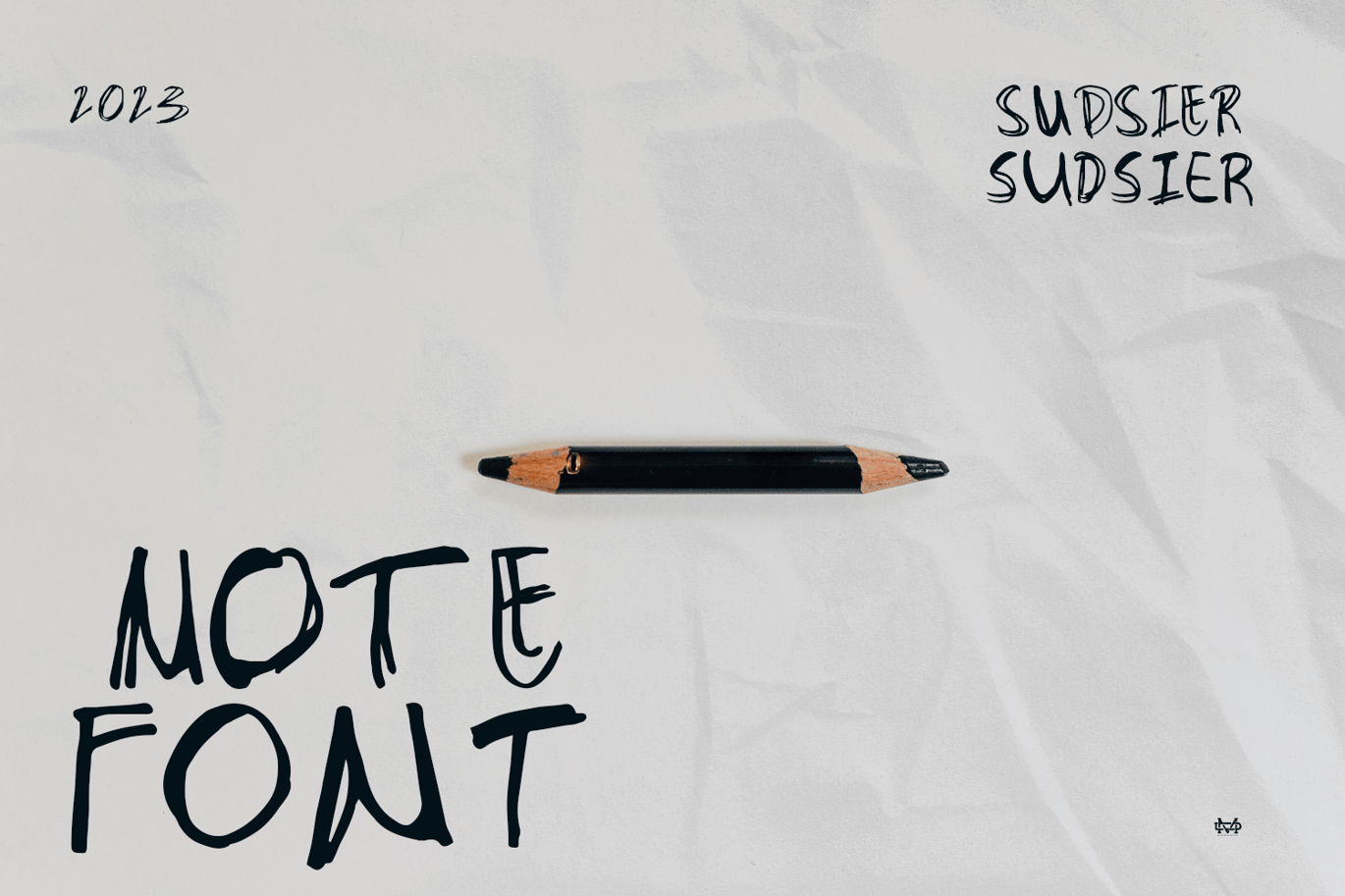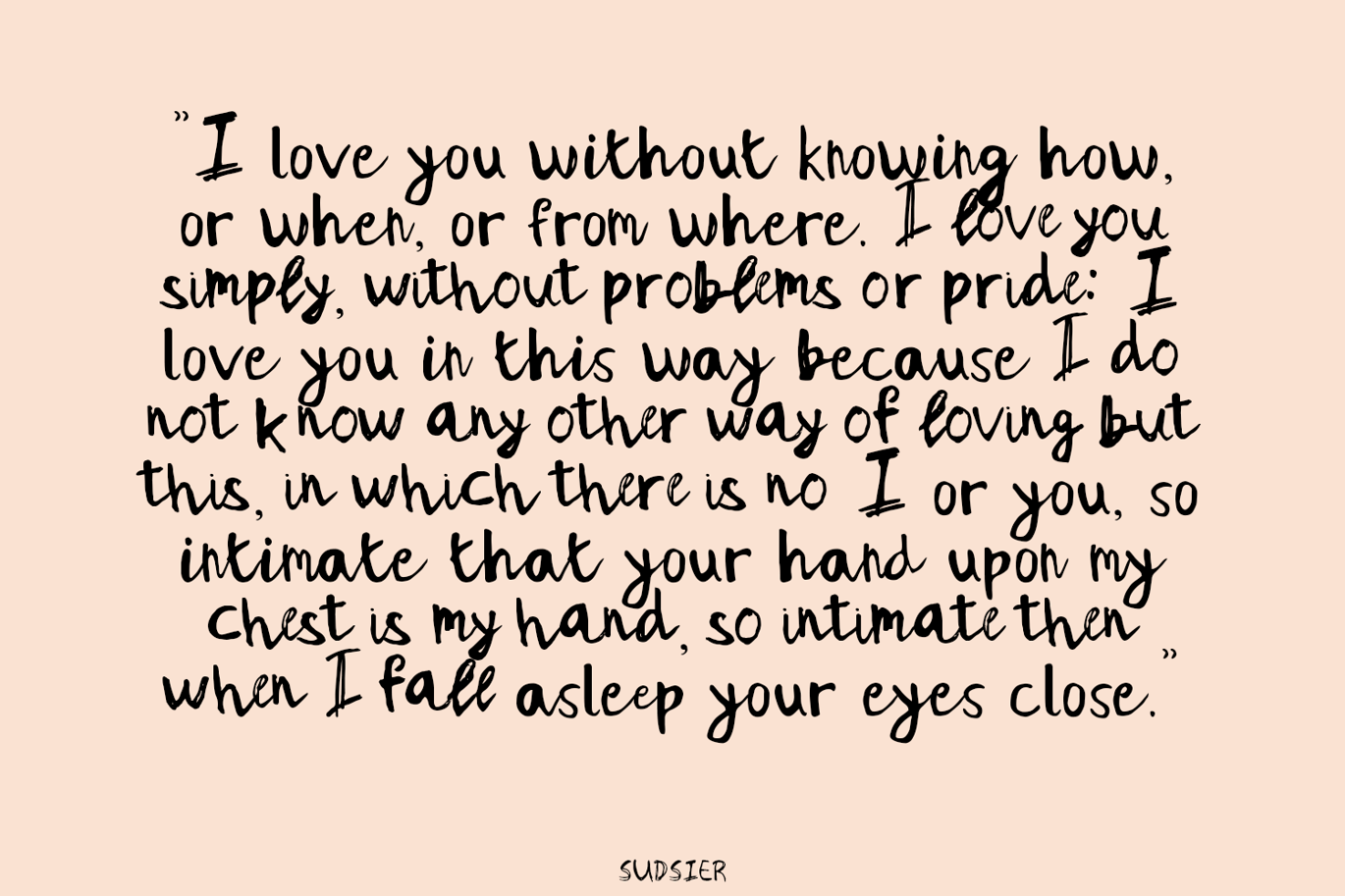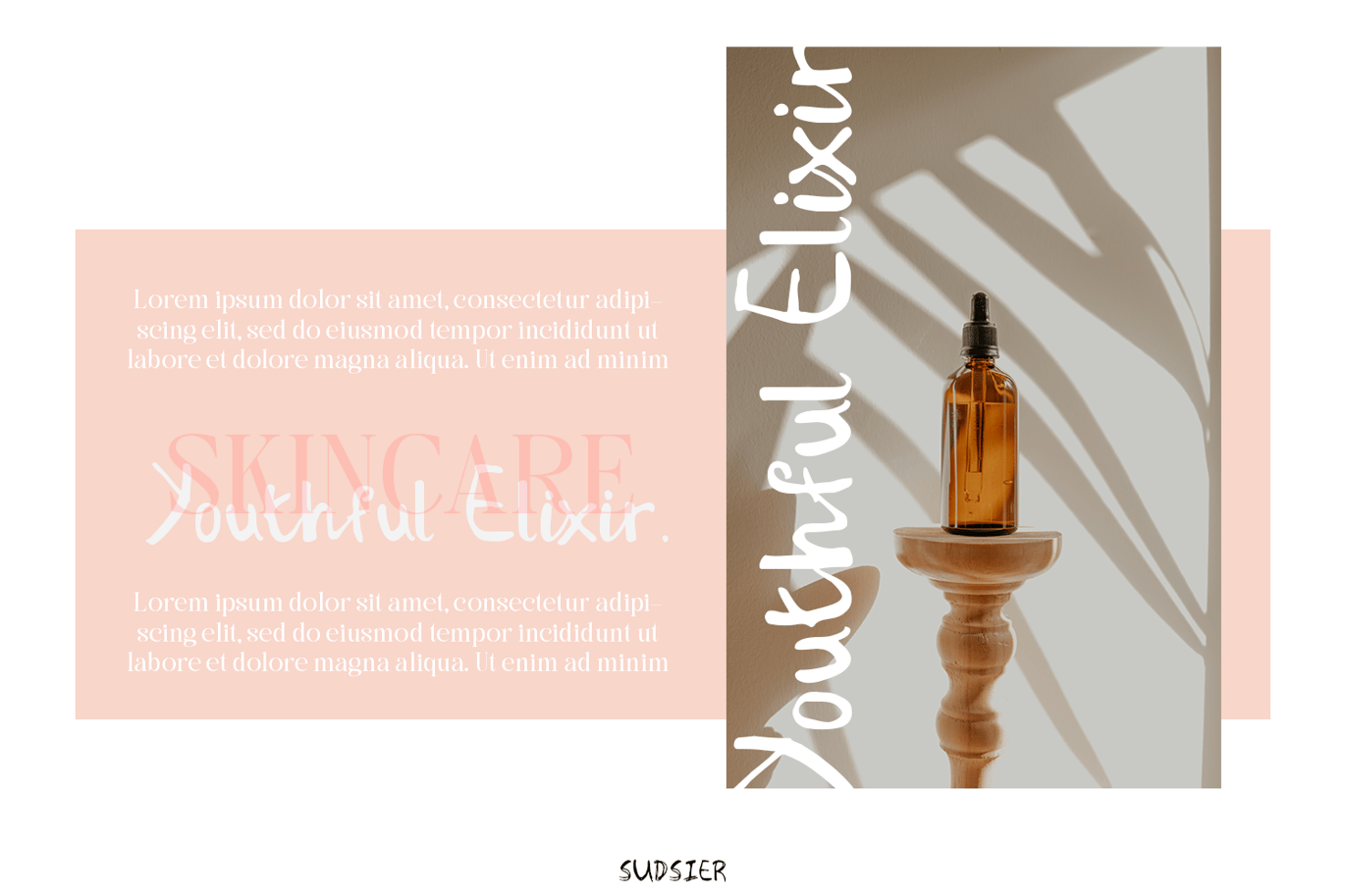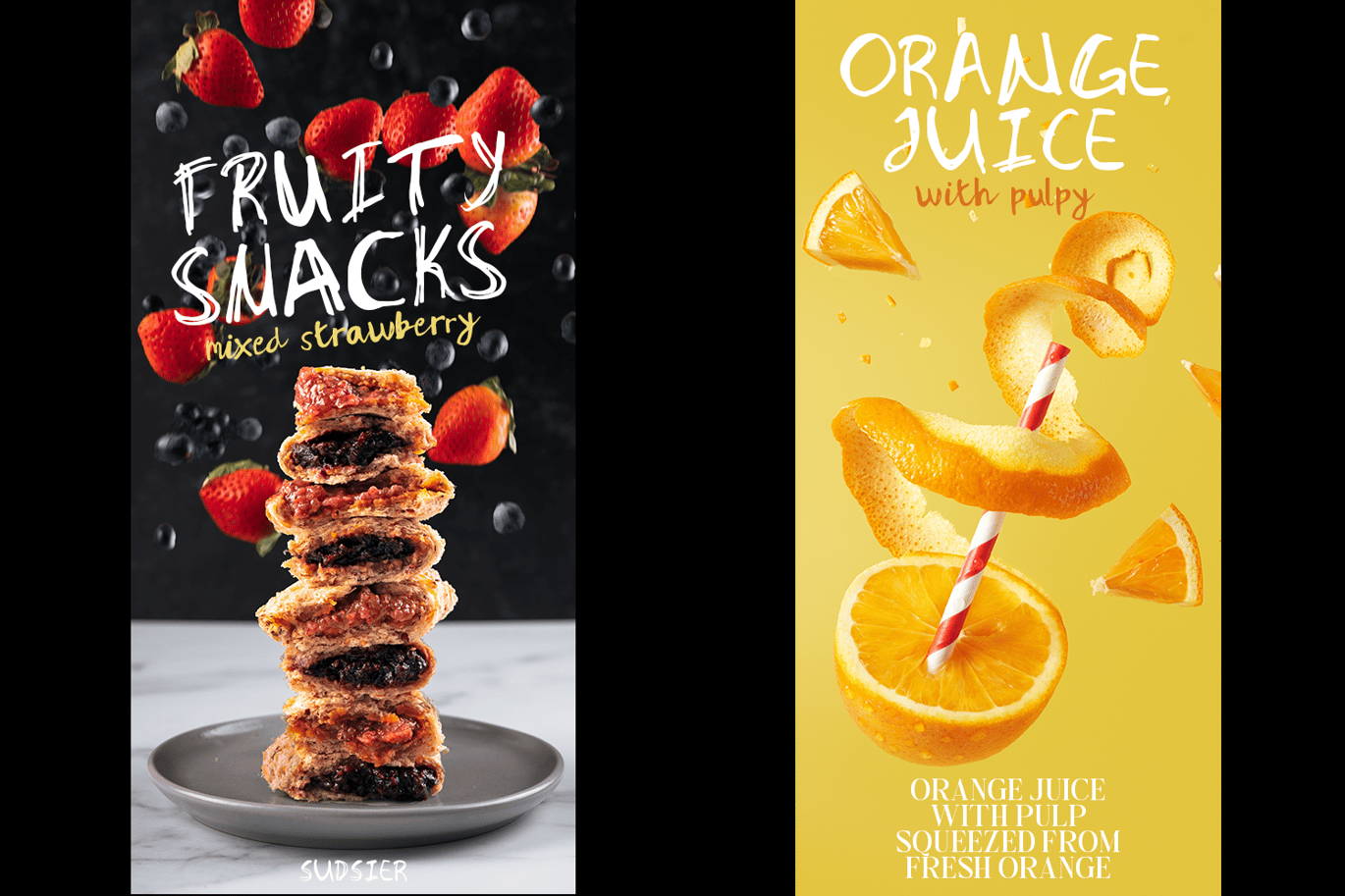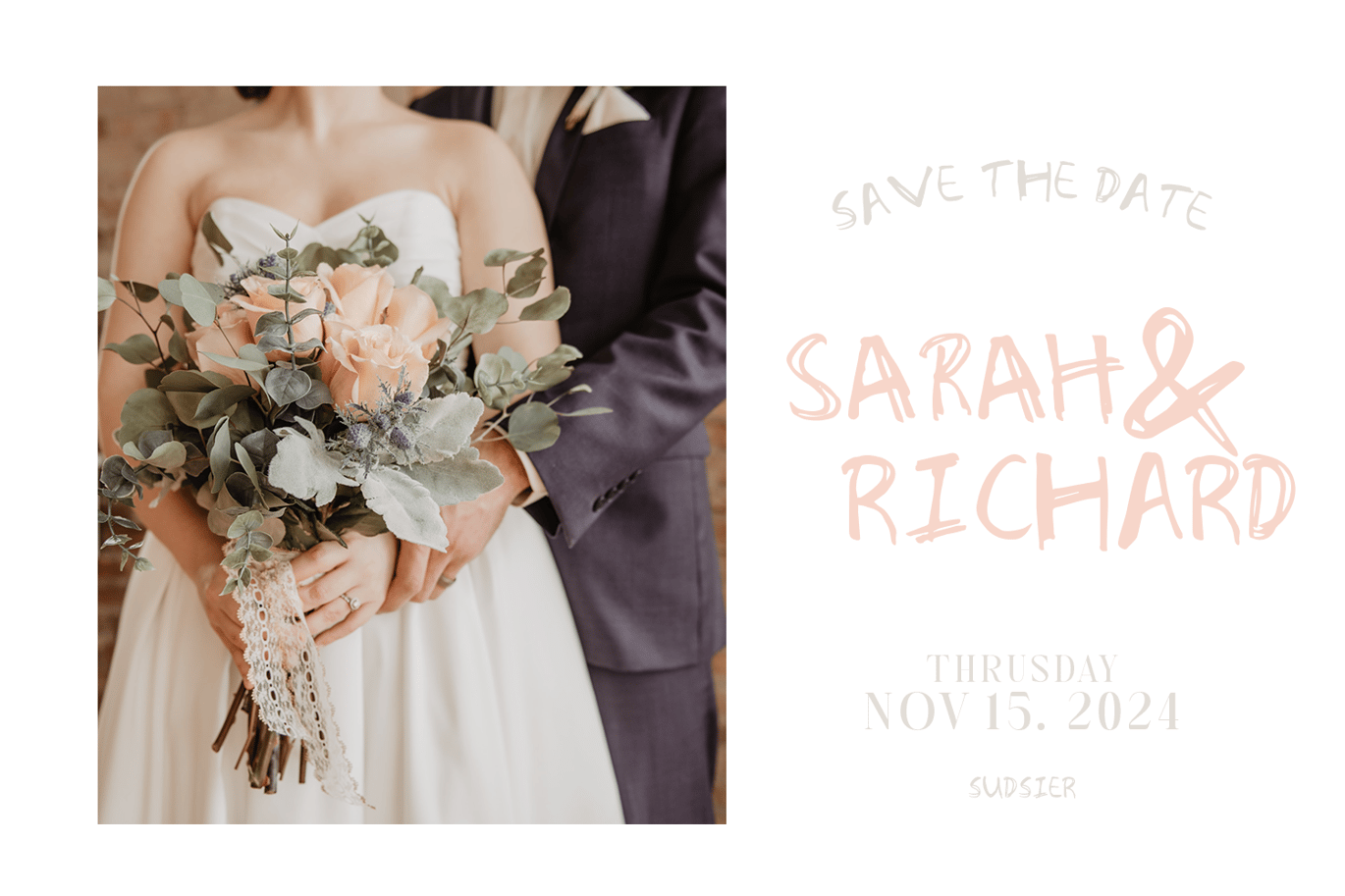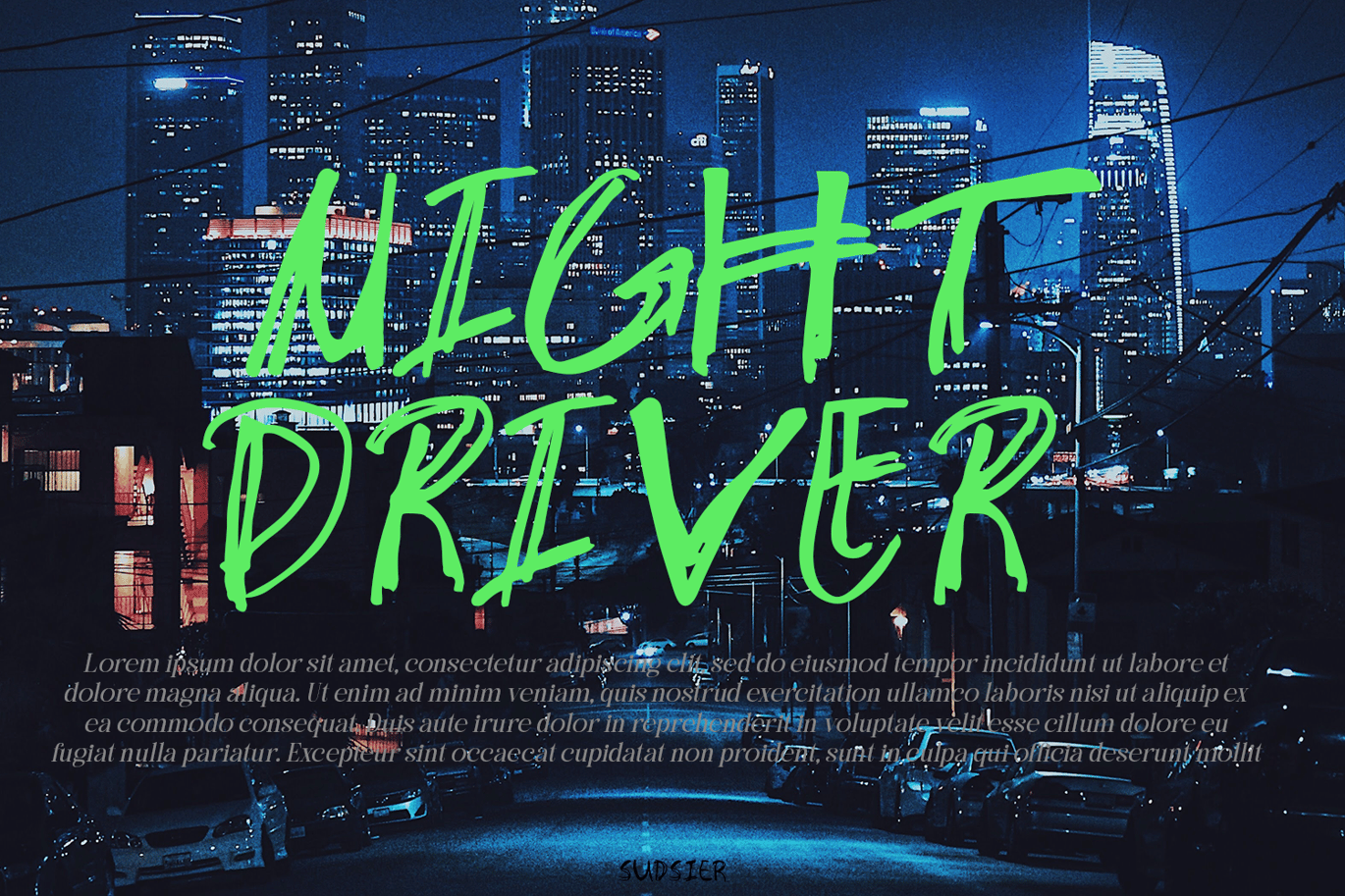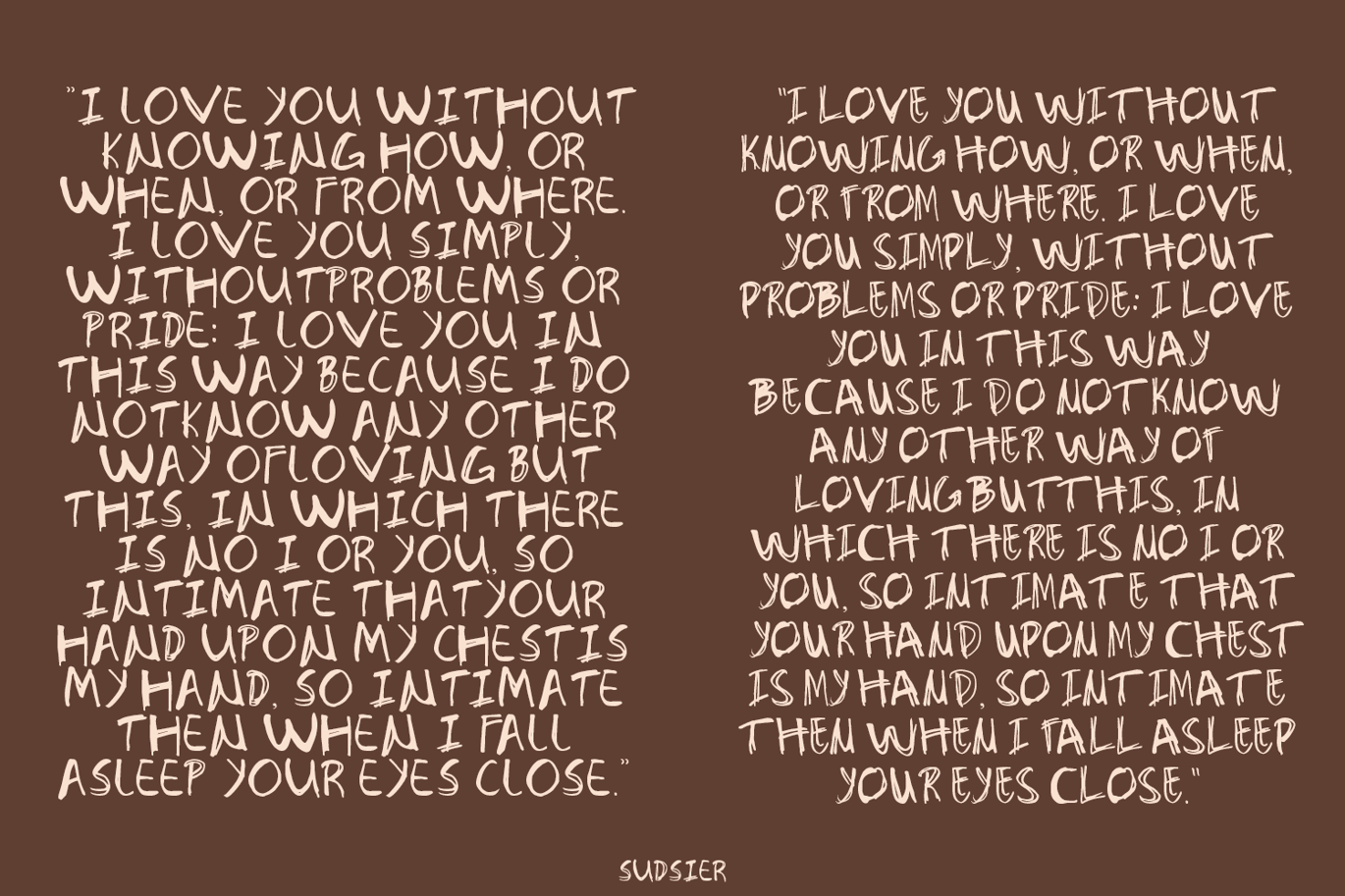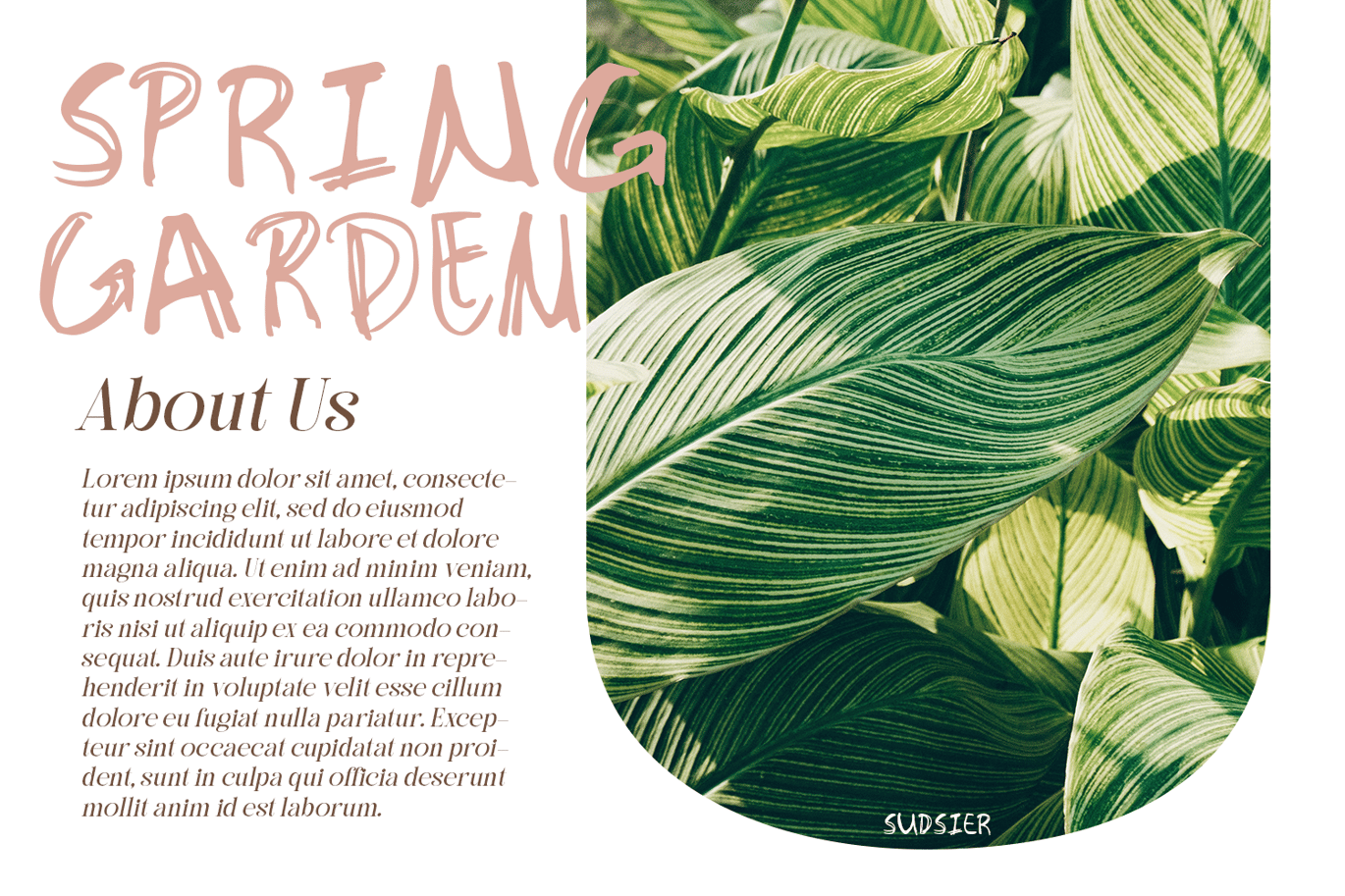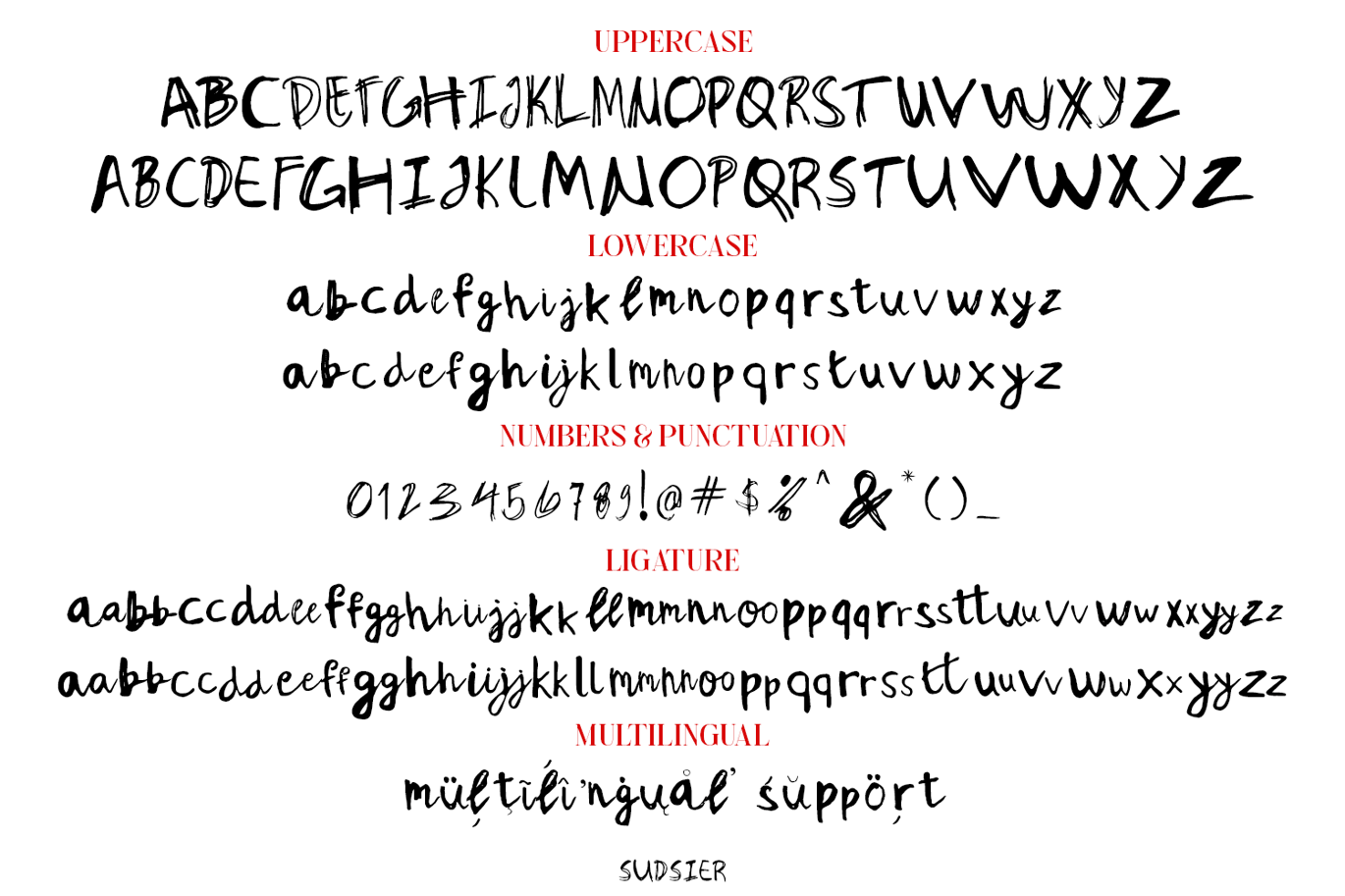
Sudsier – Hand Drawn Font
Sudsier is a note hand drawn font contains 50+ ligatures and comes with two alternative font. Sudsier is great for branding, posters, logos, invitation, writing and headings.
Feature
- Number & Symbol
- International Glyphs
- Alternative